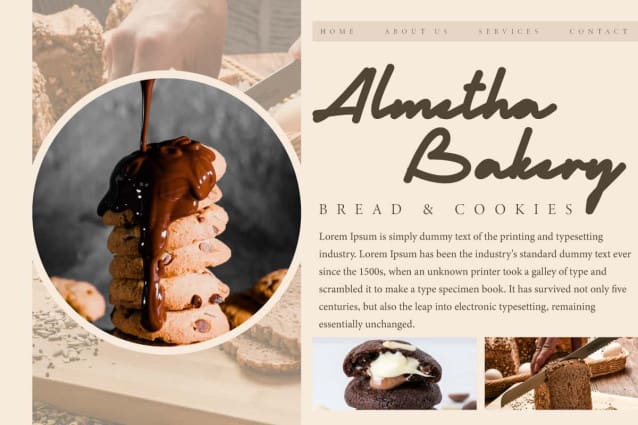
Yummy Bread Font
Yummy Bread Font is a bold casual handwriting font that is slightly slanted similar to a signature. It’s like handmade using a cool marker with a wide round tip. These natural and realistic letter edge shapes are carefully crafted to give a classic touch to your designs, make this a part of your next font collection. Perfect for cards, labels, menus, title, website and more.
Yummy Bread Font is a sweet handwriting font designed with authentic letterforms. It is perfect for enhancing visuals by bringing a bold and versatile artistic feel to your design projects. This handwritten font that is suitable for bakery, cafeteria, graphic design, handicraft, photography, restaurant and anything that requires a handwritten-style font appearance.